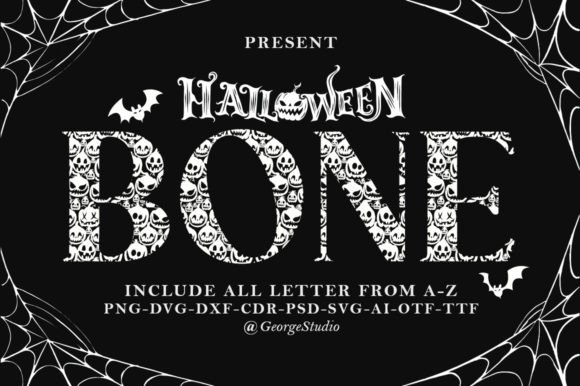
Bone Font: A Spooky Monogram Decorative Font to Elevate Your Creativity
In the world of typography, fonts play a crucial role in conveying the tone and personality of a design. Among the numerous fonts available, the Bone Font stands out as a unique and captivating choice. This spooky monogram decorative font is masterfully designed to become a true favorite among designers, artists, and creative enthusiasts. With its exceptional style and versatility, Bone Font has the potential to bring each of your creative ideas to the highest level.
Key Features of Bone Font
- Spooky Monogram Design: Bone Font boasts a distinctive monogram design that exudes a spooky charm, making it perfect for projects that require a touch of eeriness or mystique.
- Decorative Elements: The font features intricate decorative elements that add an extra layer of sophistication and elegance to your designs.
- High Versatility: Bone Font is designed to be highly versatile, allowing you to use it for a wide range of projects, from logos and branding to invitations, posters, and more.
- Easy to Read: Despite its decorative nature, Bone Font remains easy to read, ensuring that your message is conveyed clearly and effectively.
Celebrating Creativity: Usage Ideas for Bone Font
Bone Font’s unique style and versatility make it an excellent choice for various creative projects. Here are some ideas to get you started:
- Halloween-themed Designs: Use Bone Font to create spooky and captivating designs for Halloween-themed projects, such as invitations, posters, and social media graphics.
- Logo Design: Create a memorable and distinctive logo for your brand using Bone Font, which will help you stand out in your industry.
- Wedding and Event Stationery: Add a touch of elegance and sophistication to your wedding or event stationery, such as invitations, save-the-date cards, and thank-you notes.
- Art and Illustration: Use Bone Font to add a decorative touch to your artwork, illustrations, and digital paintings.
Typographic Tips for Using Bone Font
To get the most out of Bone Font, here are some typographic tips to keep in mind:
- Pair with Neutral Fonts: Pair Bone Font with neutral fonts, such as sans-serif or serif fonts, to create a balanced and harmonious design.
- Experiment with Colors: Try out different color combinations to find the perfect match for your design, from bold and bright to subtle and muted.
- Play with Size and Scale: Experiment with different font sizes and scales to create visual interest and hierarchy in your design.
The Benefits of Using Bone Font
Bone Font offers several benefits that make it an attractive choice for designers and creative enthusiasts:
- Unique and Memorable: Bone Font’s distinctive design ensures that your project will stand out and be remembered.
- High-quality Design: The font is masterfully designed to provide a high level of quality and sophistication.
In conclusion, Bone Font is a spooky monogram decorative font that offers a unique blend of style, versatility, and creativity. With its exceptional design and numerous benefits, it’s an excellent choice for designers, artists, and creative enthusiasts looking to elevate their projects. Whether you’re working on a Halloween-themed design, a logo, or a creative project, Bone Font is sure to bring your ideas to the highest level.